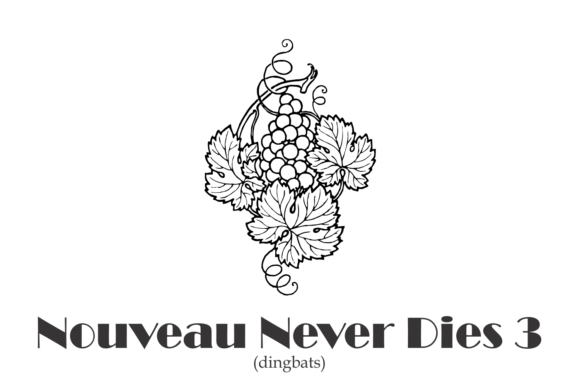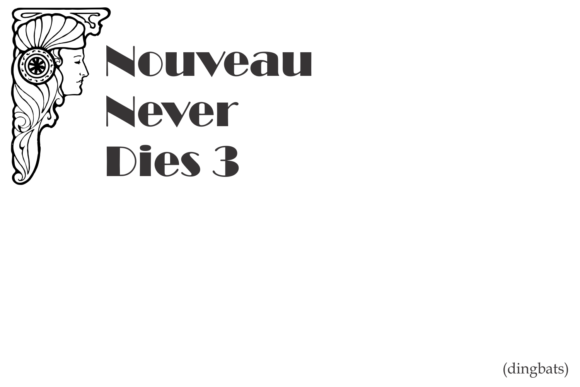
Nouveau Never Dies Font
About Nouveau Never Dies Font
The Nouveau Never Dies is a set of classic Art Nouveau dingbats and ornaments that bring a touch of elegance and beauty to any design project. Whether you’re designing a logo, a card, or any other visual element, these Art Nouveau designs are sure to catch the eye of your audience and instantly convey a sense of sophistication and tradition.
The Nouveau Never Dies is an incredible asset to any designer’s font library, with its incredible versatility and wide range of motifs. With its classic Art Nouveau style, this set of dingbats and ornaments can be used in a wide range of projects, from logos to signs to printed materials. Whether you’re designing a logo for a fine dining establishment, a gourmet restaurant, or any other project, these Art Nouveau dingbats and ornaments are the perfect way to add a touch of classic elegance to your design.
The Nouveau Never Dies is also an ideal choice for any designer looking for a visually striking and memorable set of designs. With its classic Art Nouveau style, this set of dingbats and ornaments has the potential to create a design that stands out from the crowd. Whether you’re designing a logo or a card, these Art Nouveau motifs are sure to create a design that is both visually appealing and unforgettable.
One of the best ways to use the Nouveau Never Dies is to create a design with a touch of classic elegance. Whether you’re designing an invitation to a high-end event, a fine dining establishment logo, or any other project, these Art Nouveau dingbats and ornaments are the perfect way to add a touch of classic Art Nouveau style to your design.
In addition, the flowers and ornaments in the Nouveau Never Dies are designed to be elegant and beautiful, without being overbearing or overpowering. Whether you’re designing a logo or a card, these motifs can be used to create a design that is both visually appealing and easy to read.
So if you’re looking for a visually striking and memorable set of designs that can be used in a wide range of projects, The Nouveau Never Dies is a great choice. With its classic Art Nouveau style and its incredible versatility, this set of dingbats and ornaments has the potential to create a design that stands out from the crowd and conveys a sense of classic elegance and beauty.